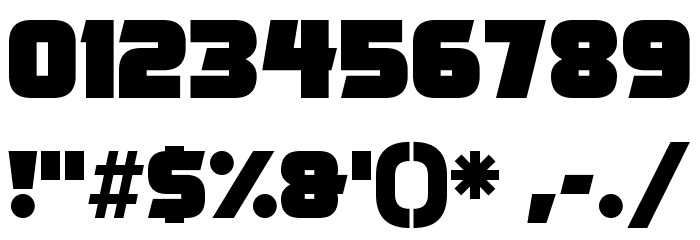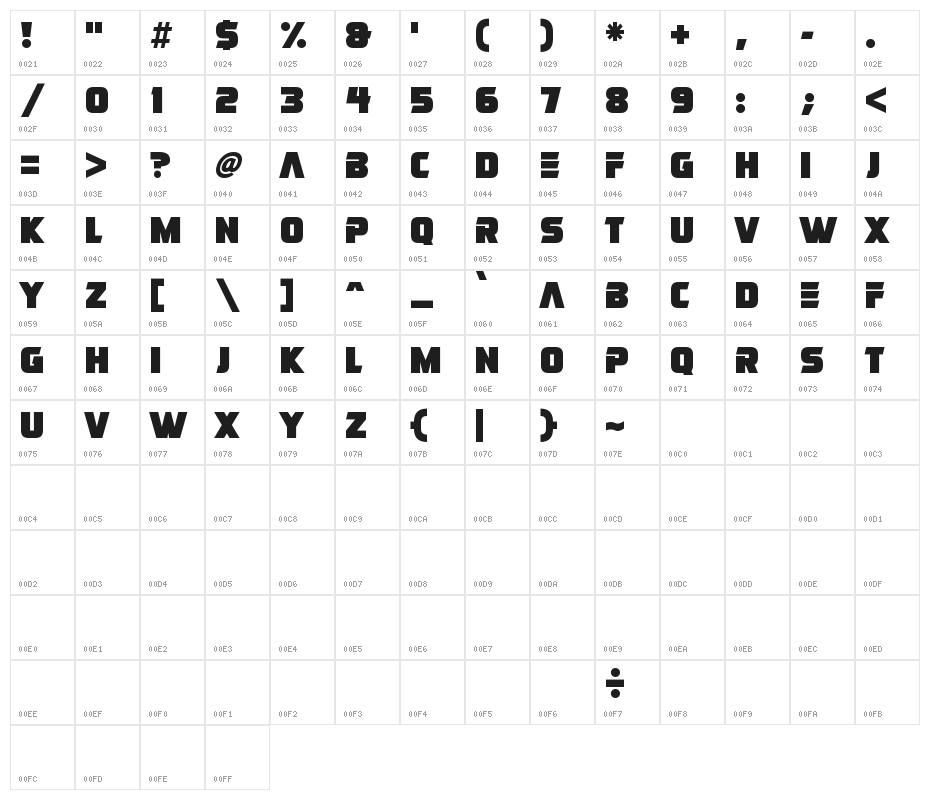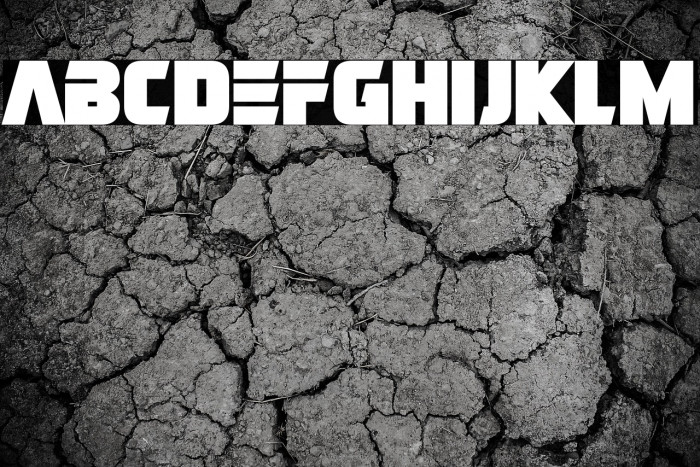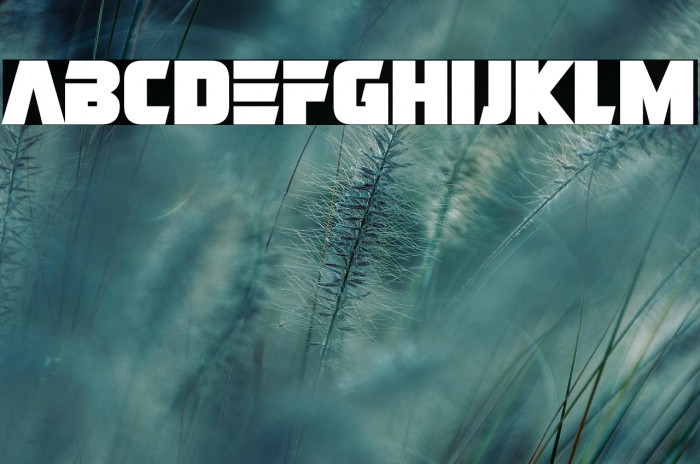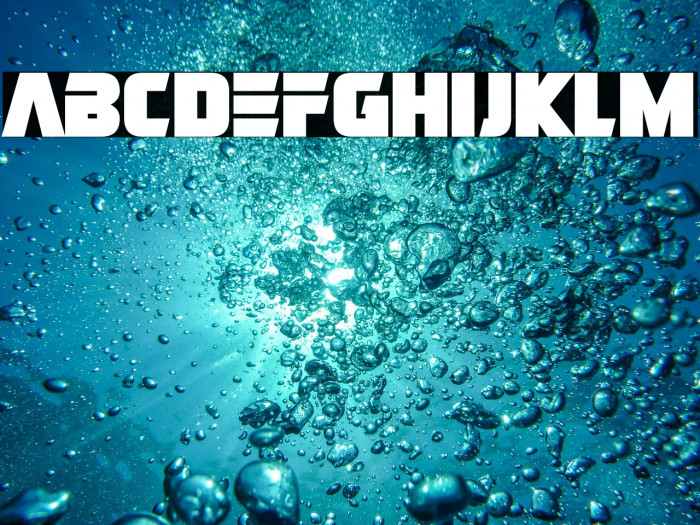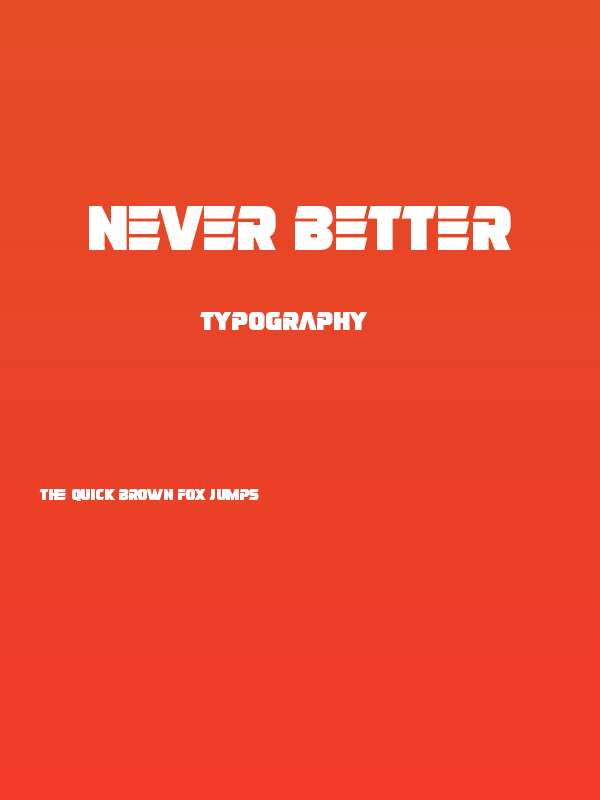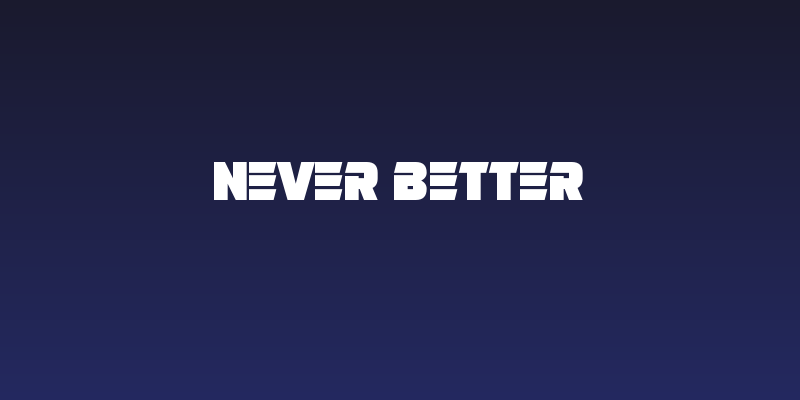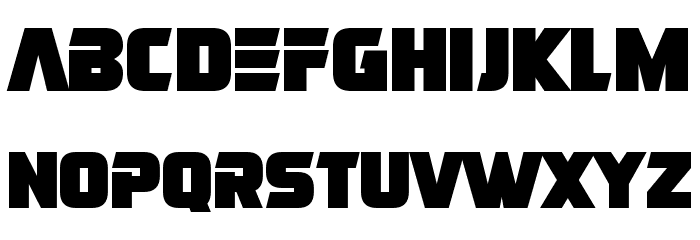
Never Better Font
Never Better Description
This font features a bold and striking design with a modern, geometric aesthetic. The characters are blocky and angular, with sharp edges and a strong presence. The uppercase letters are particularly impactful, with a uniform height and width that create a cohesive look. The numbers and special characters maintain the same bold style, ensuring consistency across all elements. The font's design is clean and uncluttered, making it suitable for attention-grabbing headlines and impactful logos. Its distinct style is both contemporary and versatile, allowing for creative applications in various design projects.